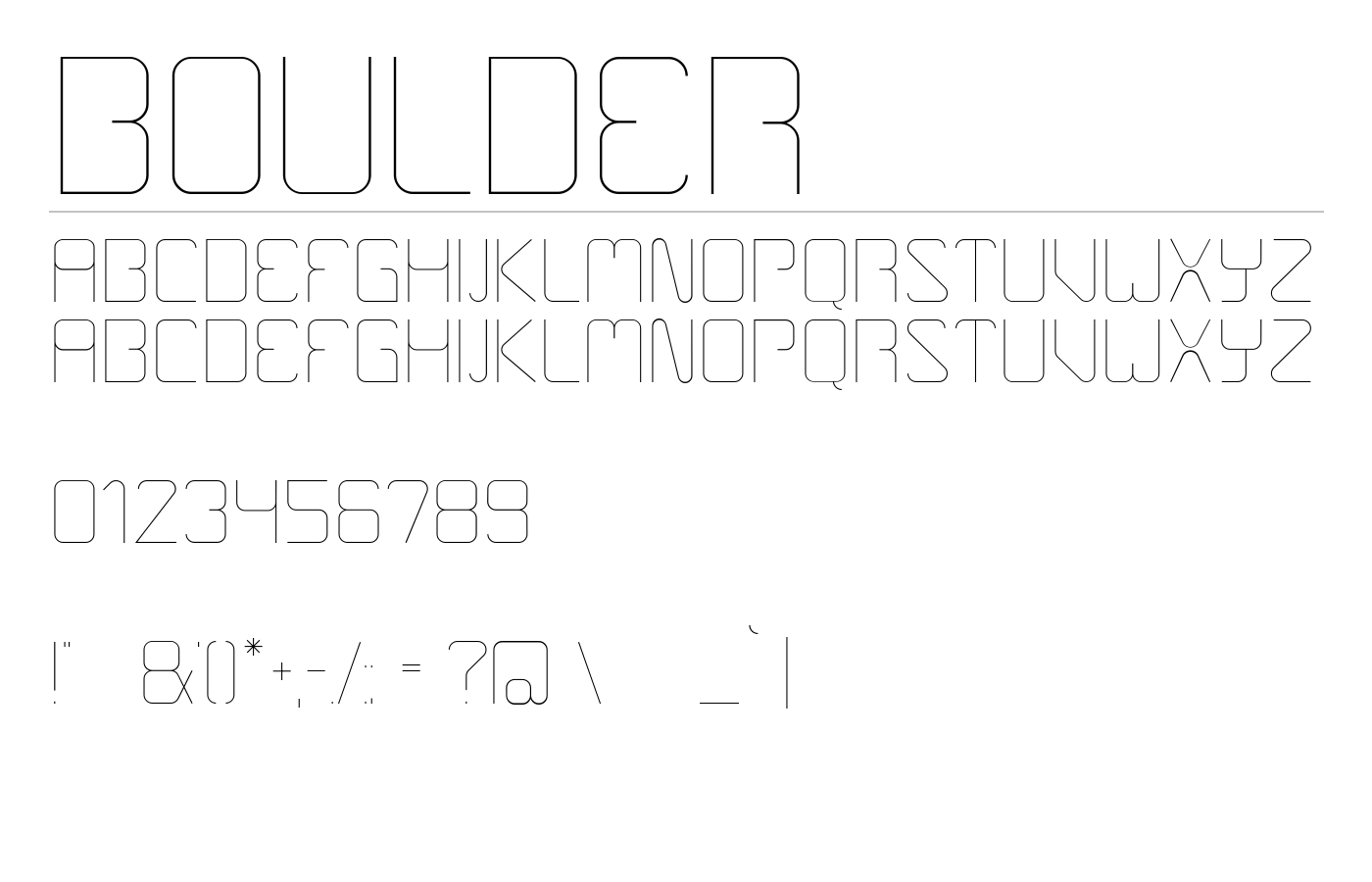
Boulder is a stylish, ultra-lightweight sans serif font characterized by its narrow, geometric letterforms with rounded corners and a delicate, outline-only stroke. Its modern, clean design with evenly spaced letters and subtle curves exudes a minimalist and elegant feel, making it ideal for contemporary branding, headlines, and creative projects that seek a sleek yet approachable aesthetic. This font works well in digital and print contexts where a refined, airy look is desired without sacrificing readability.
Boulder Font
About Boulder Font